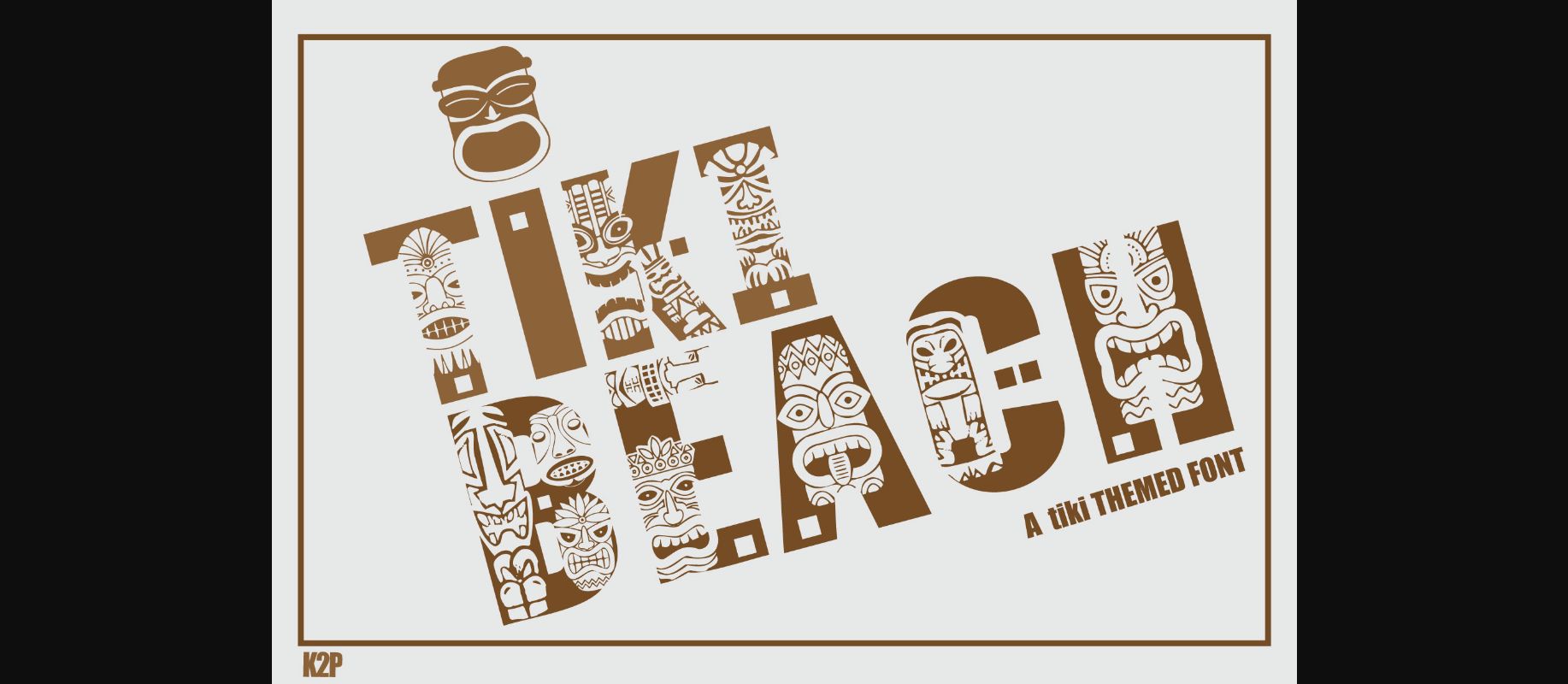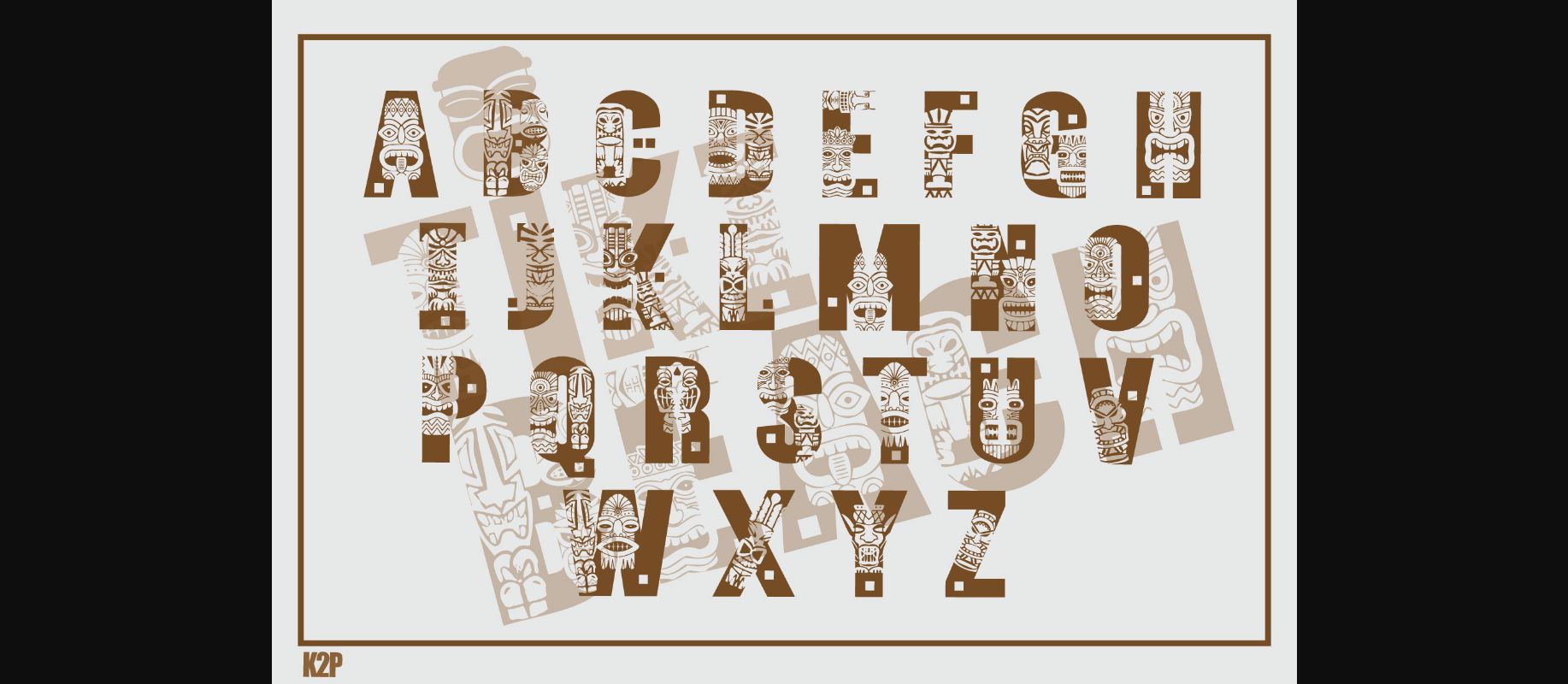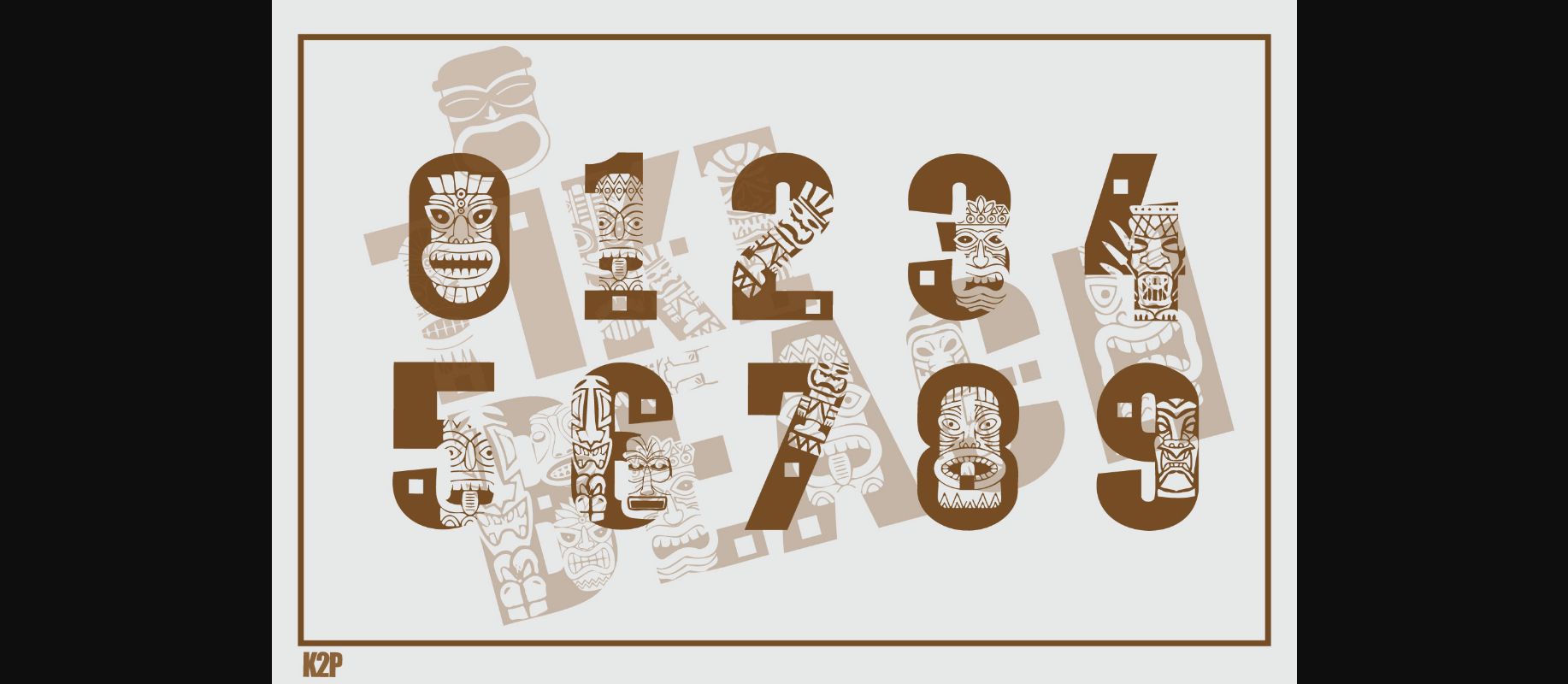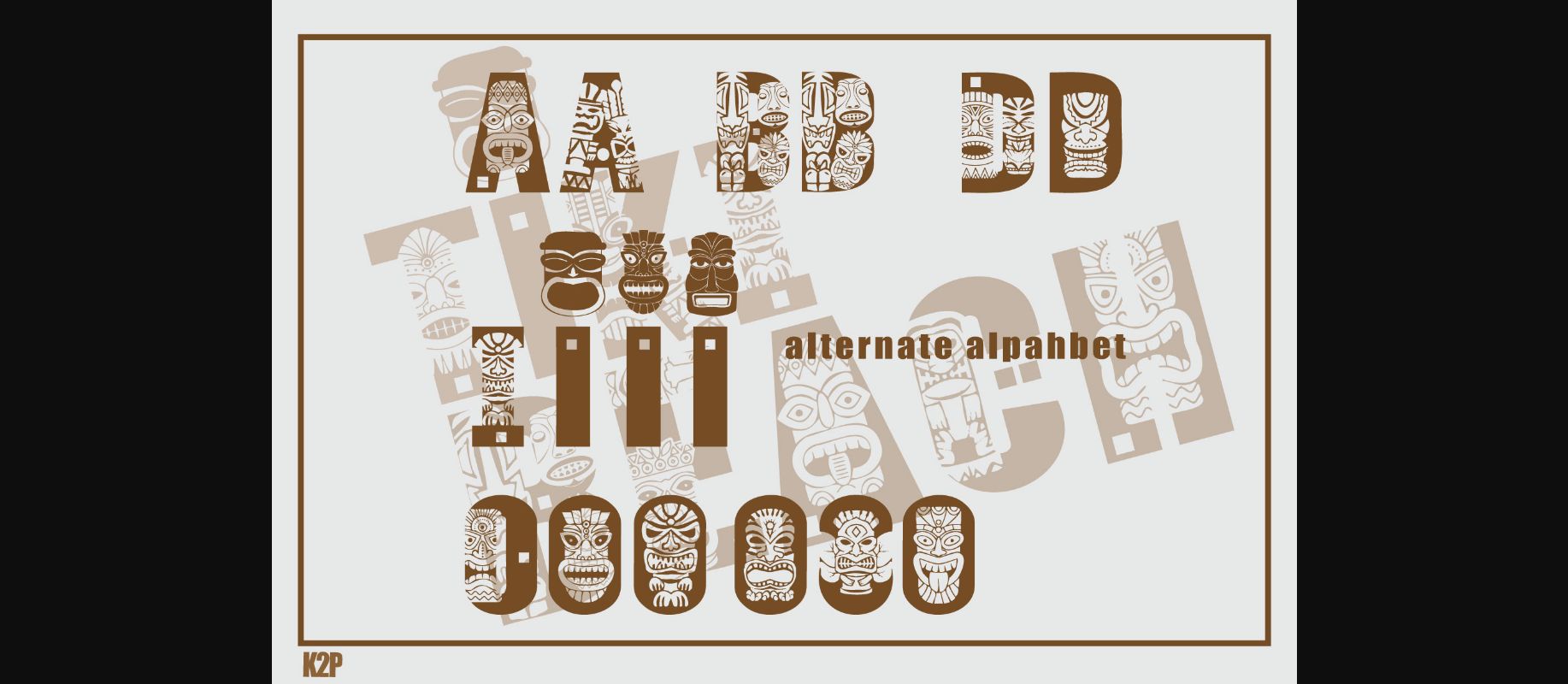
Tiki Beach Font
About Tiki Beach Font
Tiki Beach is a bold and assertive decorative font. It is perfect for various design ideas related to fishing, camping, traveling, and more creations. This font is PUA encoded which means you can access all of the glyphs and swashes with ease.